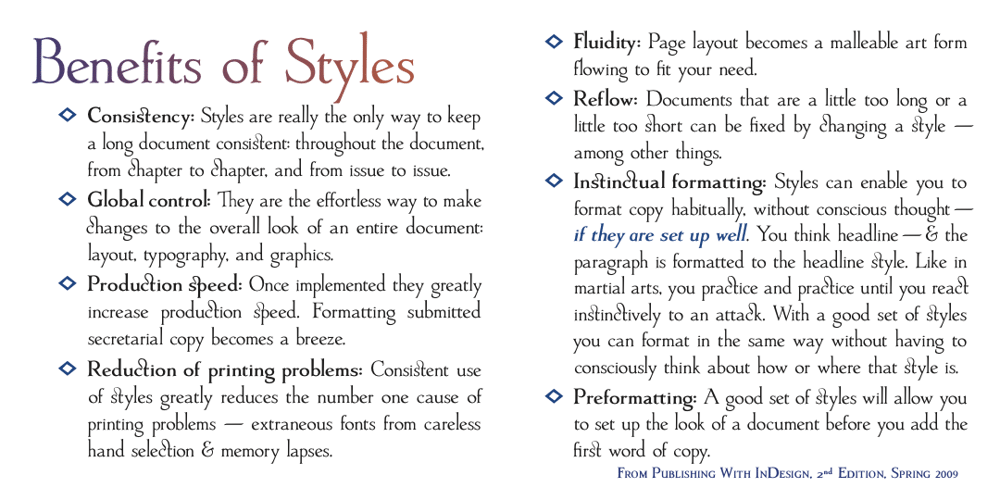
Artimas Font Family was designed by David Bergsland and published by Hackberry Font Foundry. Artimas contains 6 styles and family package options. The Artimas family is the new book design font family developed out of Aramus. These new serif typefaces are readable and graceful — part of my development of a series of book families. Aramus was very popular for a single font release of a text font. This new book font family retains the looseness of the original with radically different font metrics and many shape “corrections”. In fact, Artimas continues a genuine new path for this foundry This new font family for book design continues a turn toward more “traditional” x-heights of around a third of the point size.The Artimas print production font family is six new OpenType Pro fonts with Caps, lowercase, small caps, & figures to go with each of those character sets. There are many ligatures, a few swashes, fractions, numerators, denominators, and ordinals to infinity. This family of fonts is a joy to read and easy to use for text or display.